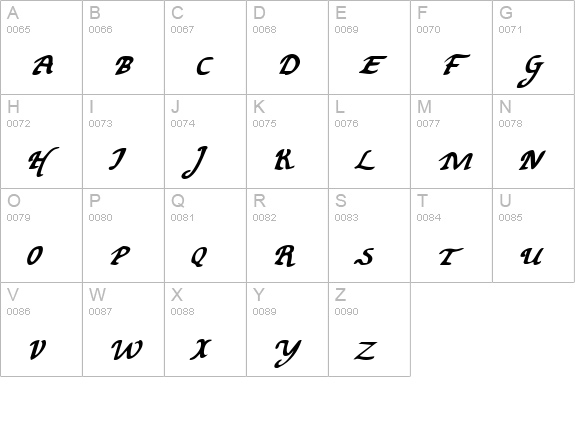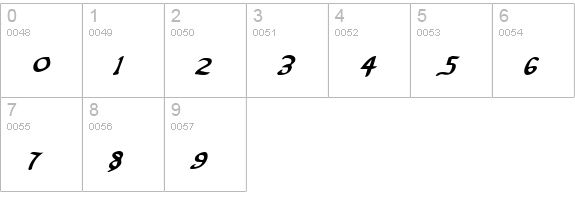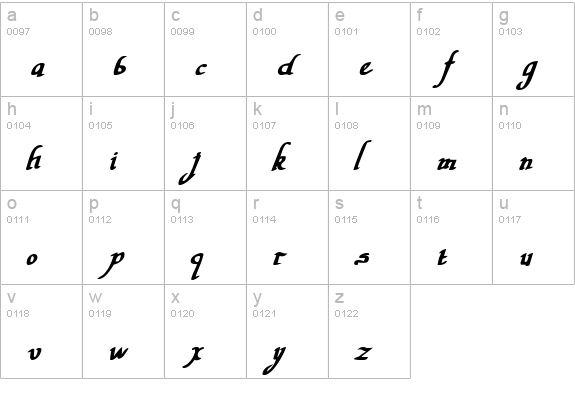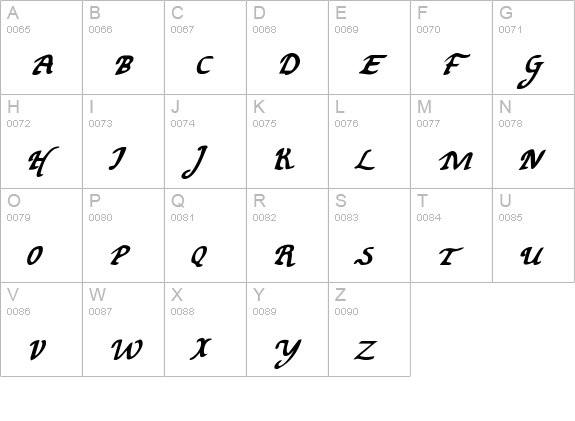
Valley Forge Bold Italic is a strong, high-contrast, italic variant in the Valley typeface family \xE2\x80\x94 well suited to headlines, attention-grabbing titles, and strong calls-to-action.
Valley Forge Bold Italic font exudes a sense of boldness and elegance, perfect for making a statement in your designs. The strong, slanted strokes give this font a dynamic and modern feel, making it ideal for headlines, logos, and branding projects. Its unique combination of boldness and italics adds a touch of sophistication and flair to any design. And the best part? Valley Forge Bold Italic font is available for free download at FontsMarket.com. Whether you're a professional designer looking to add a new font to your collection or a hobbyist looking to enhance your creative projects, this font is a must-have. Download it today and elevate your designs with the bold and stylish Valley Forge Bold Italic font.